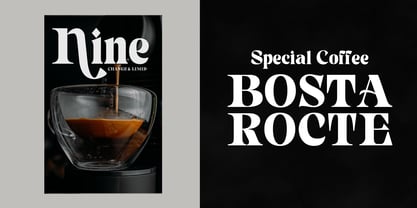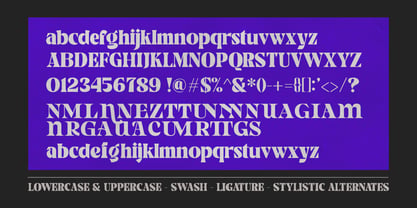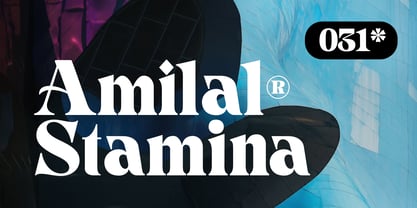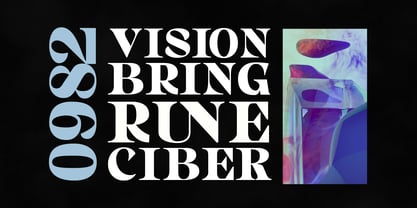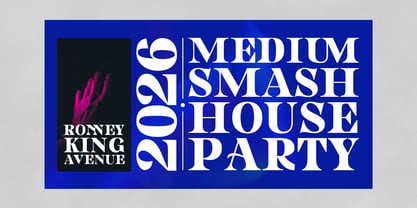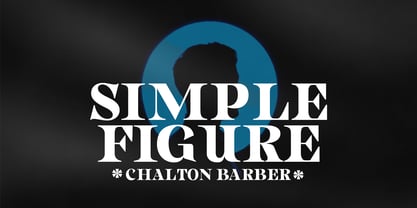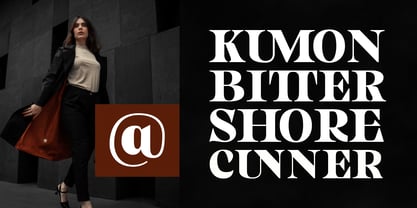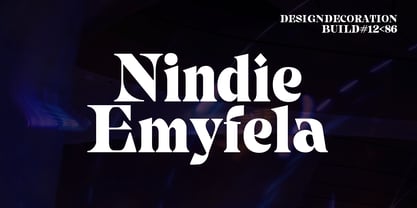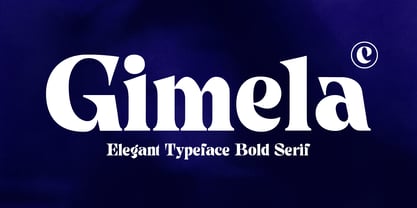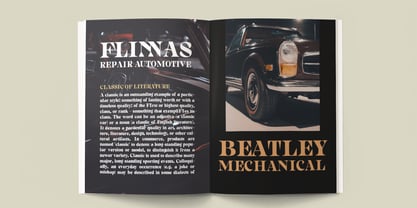
Gimela
von Gatype
Die Schriftfamilie Gimela wurde von khaidir entworfen und von Gatype veröffentlicht. Gimela enthält 30 Stile und Familienpaketoptionen. Mehr über diese Familie
Gimela, an editorial-style display serif font inspired by a monumental story, offers a bold, unique character and a soft, captivating touch.
Using the Gimela typeface will enhance your design and provide the flexibility to combine various weight options. In addition to supporting a wide range of languages ​​and various weight options, you can also customize your brand design using alternate characters and ligatures for a special touch.
Gimela also comes with a comprehensive character set, including:
uppercase and lowercase letters
multilingual characters
numerals
punctuation